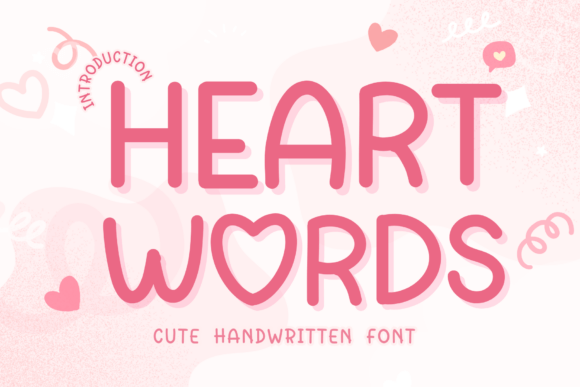
Heart Words Font
Heart words is a sweet and cute handwritten font. This gentle font will look gorgeous on a variety of design ideas. It will add a joyful and romantic touch to each of your projects! Perfectly fit for branding, logo, wedding things, greeting cards, fashion, lookbook, marketing promotion, and any time you want your design to look fancy and elegant, but still casual.